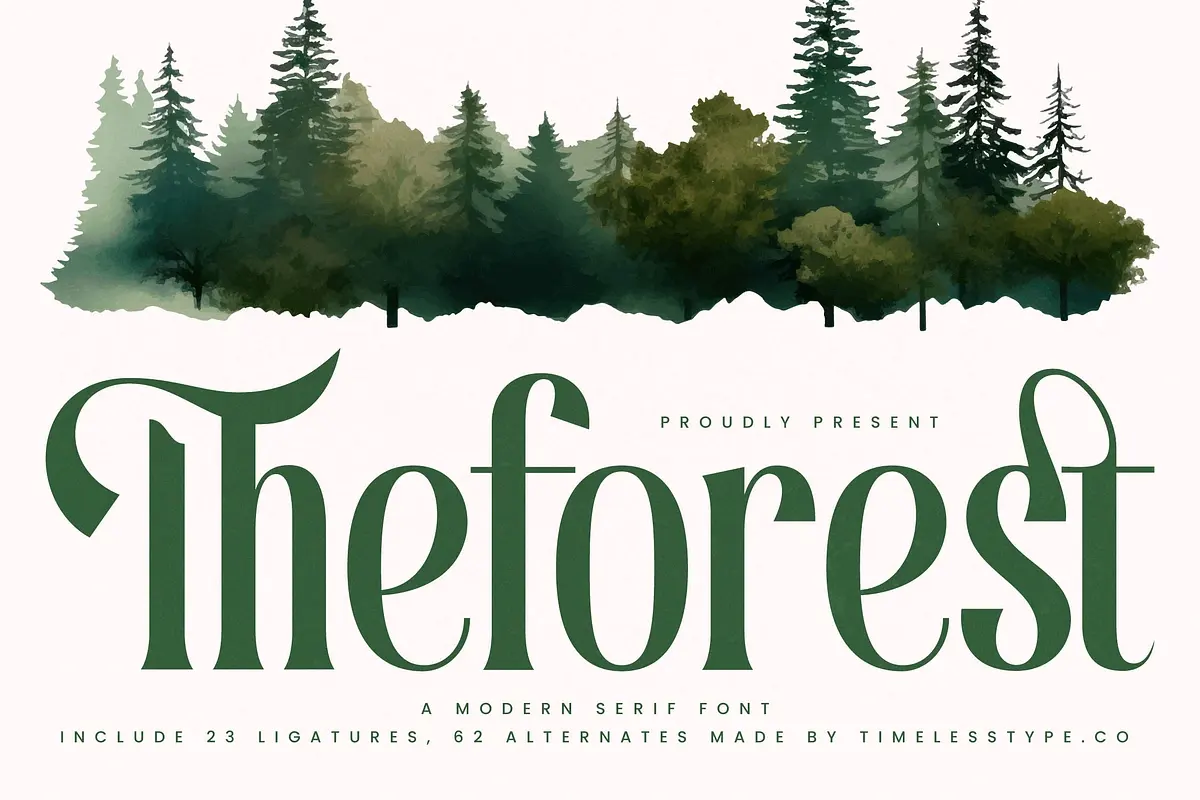
Theforest Modern Serif Font Free Download
Theforest Modern Serif Font Free Download is a stylish and contemporary typeface that blends modern design with classic serif elements. Its clean lines and sharp serifs make it perfect for a wide range of projects, from logos and branding to editorial designs and websites. The font’s versatility ensures it works well for both professional and creative designs, adding a touch of sophistication and elegance to any project. Whether you're working on a luxury brand, creating high-end promotional materials, or designing a chic website, Theforest Modern Serif Font Free Download allows you to explore its sleek style in personal projects before purchasing a commercial license. Elevate your designs with this beautifully crafted modern serif font.